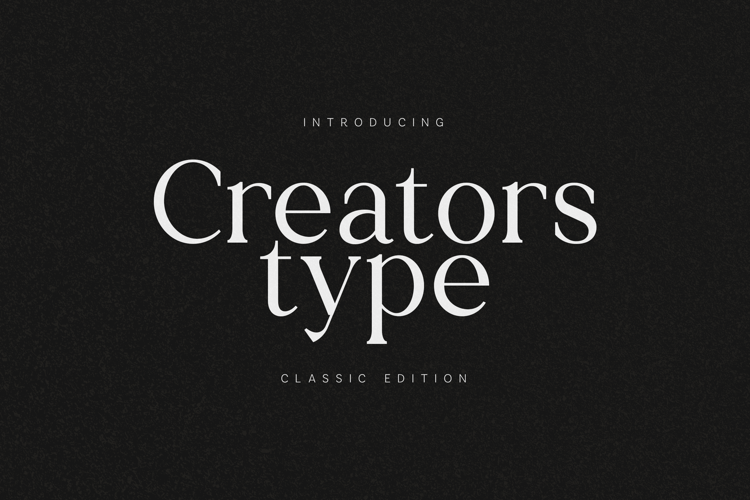
Citation Font
Citation Font is a serif modern and classic typeface that has own unique style & modern look. It's was created to fulfill your need to create a charming and cool design. Equipped with many unique ligatures in font that will make your designs different from other designs. This typeface is perfect for an elegant & luxury logo, book or movie title design, fashion brand, magazine, clothes, lettering, quotes, and so much more.
To make it look more unique, here we prepared some ligatures:ab ac ad ah ai aj am an ao ap aq at as ca ce cb ch cm cn co cp ct db dc dd dh di dj dm dn do dp dq ea ee eb eh em en eo ep et fj ud uh ui uj um un uo up uq ub uc ss st rs ra ot mf mi mh ml mk mm mn mo mr ni nh nl nk nm nn no nr if ii ih il ik im in io ir hf hi hh hl hk hm hn ho hr gi gj
Include Fancy Style on Every Uppercase and Some Lowercase
Citation is also included full set of:- Uppercase and Lowercase letters
- Special Ligatures
- Numerals & Punctuation
- Accented characters